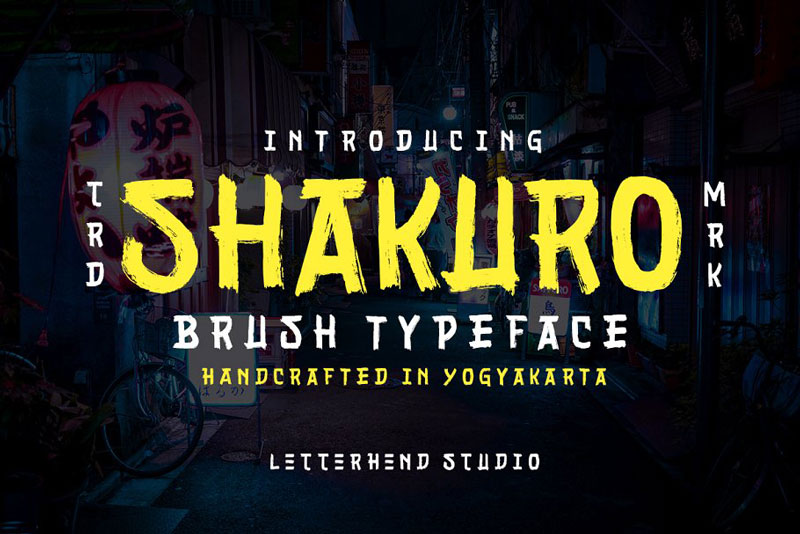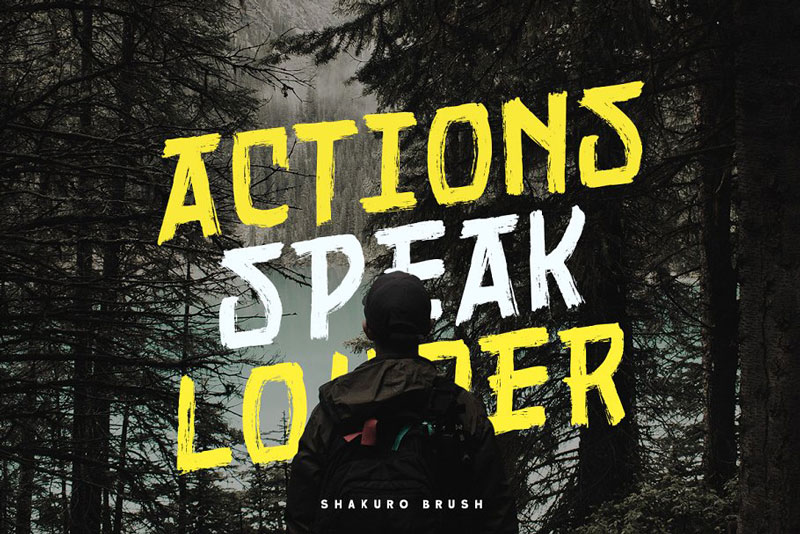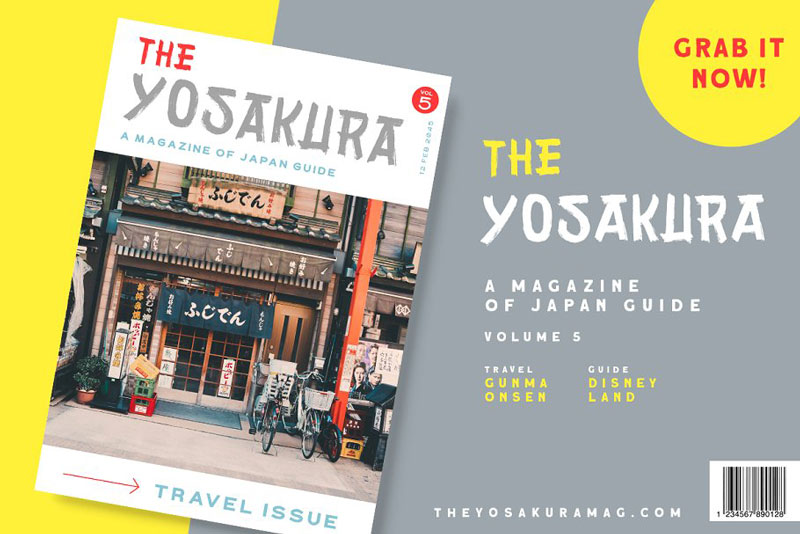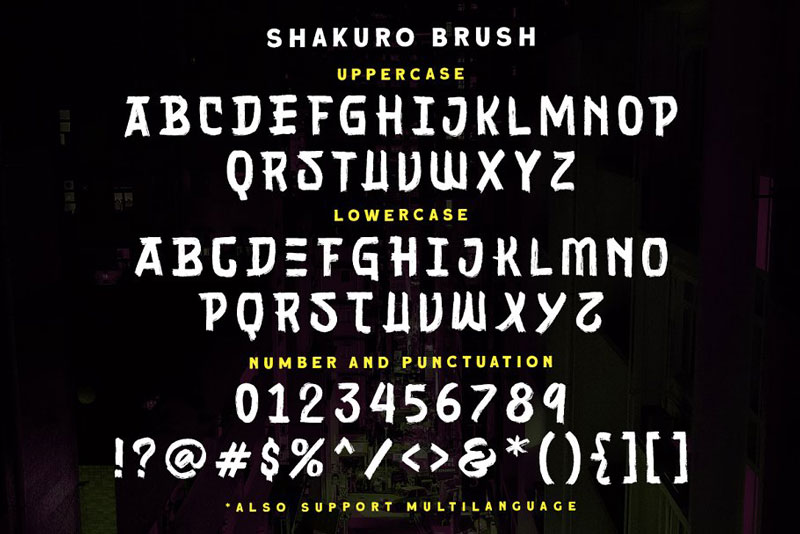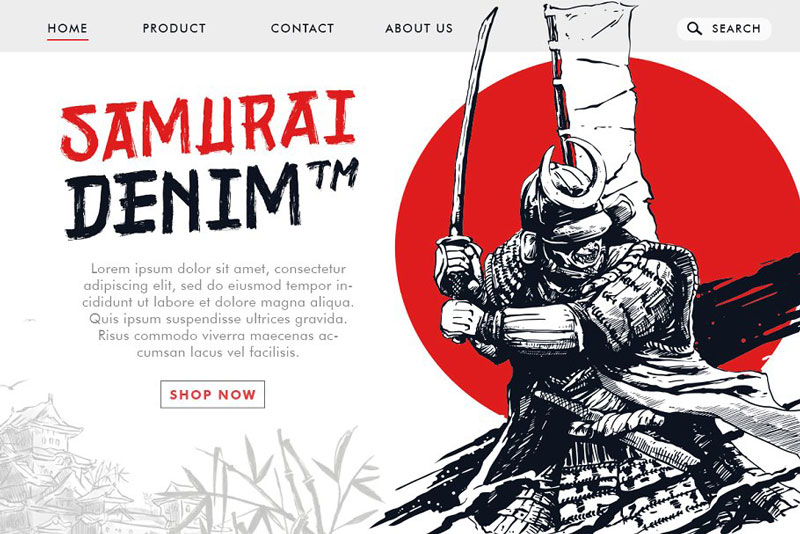
Sakhuro – Brush Typeface
Introducing, Shakuro Font. As you can see, this brush typeface has a unique letterform inspired by Japanese kanji typography. Very suitable to use for headline, title, logo, or anything especially related to japan or Asian theme. Also checkout Almerian Script Font.
Features :
• uppercase & lowercase (alternates)
• numbers and punctuation
• multilingual